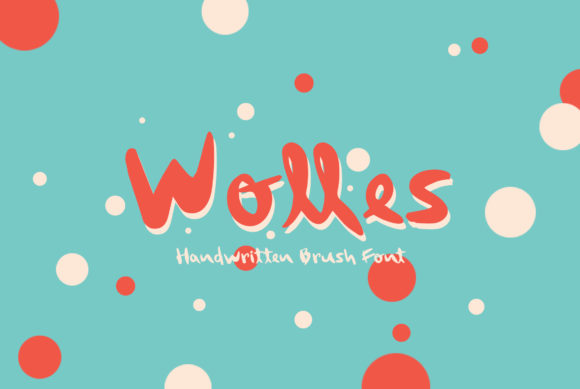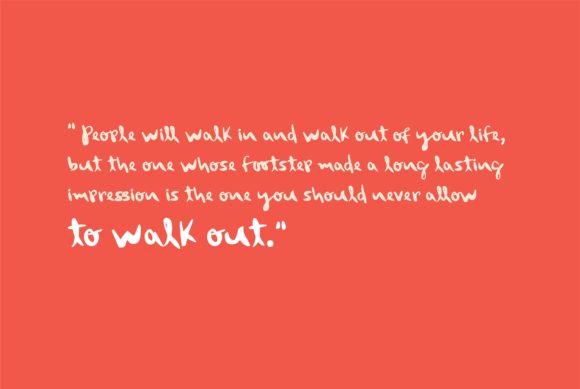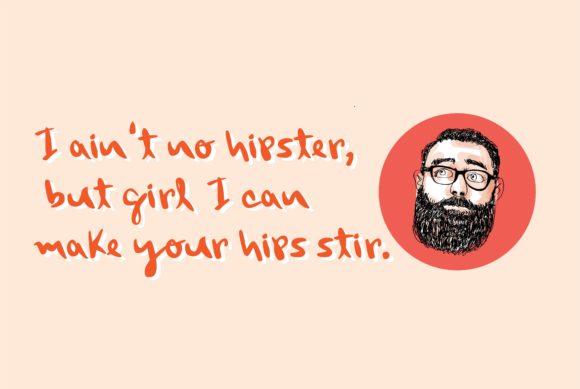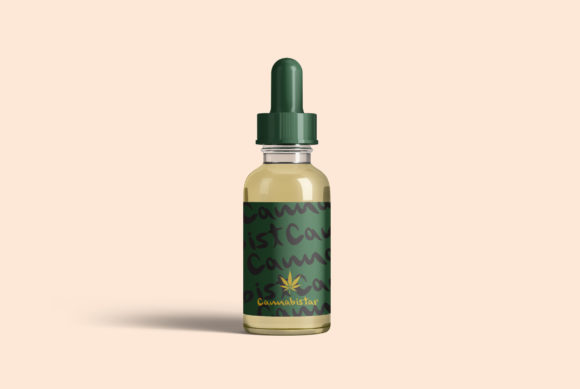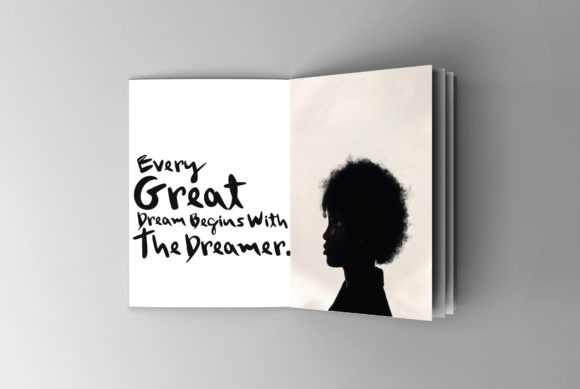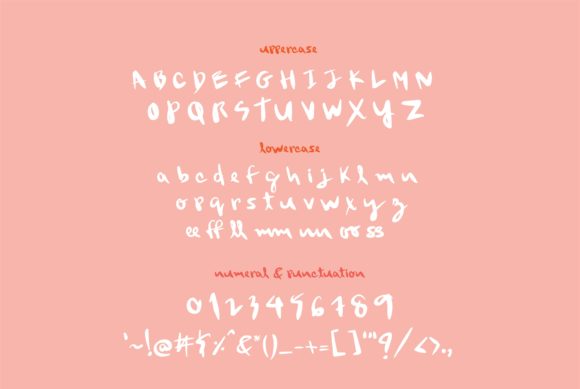
Wolles Font
About Wolles Font
Wolles is a quirky and simple handwritten font. Its natural and unique style makes it incredibly fitting to a large pool of designs. The only limit is your imagination!